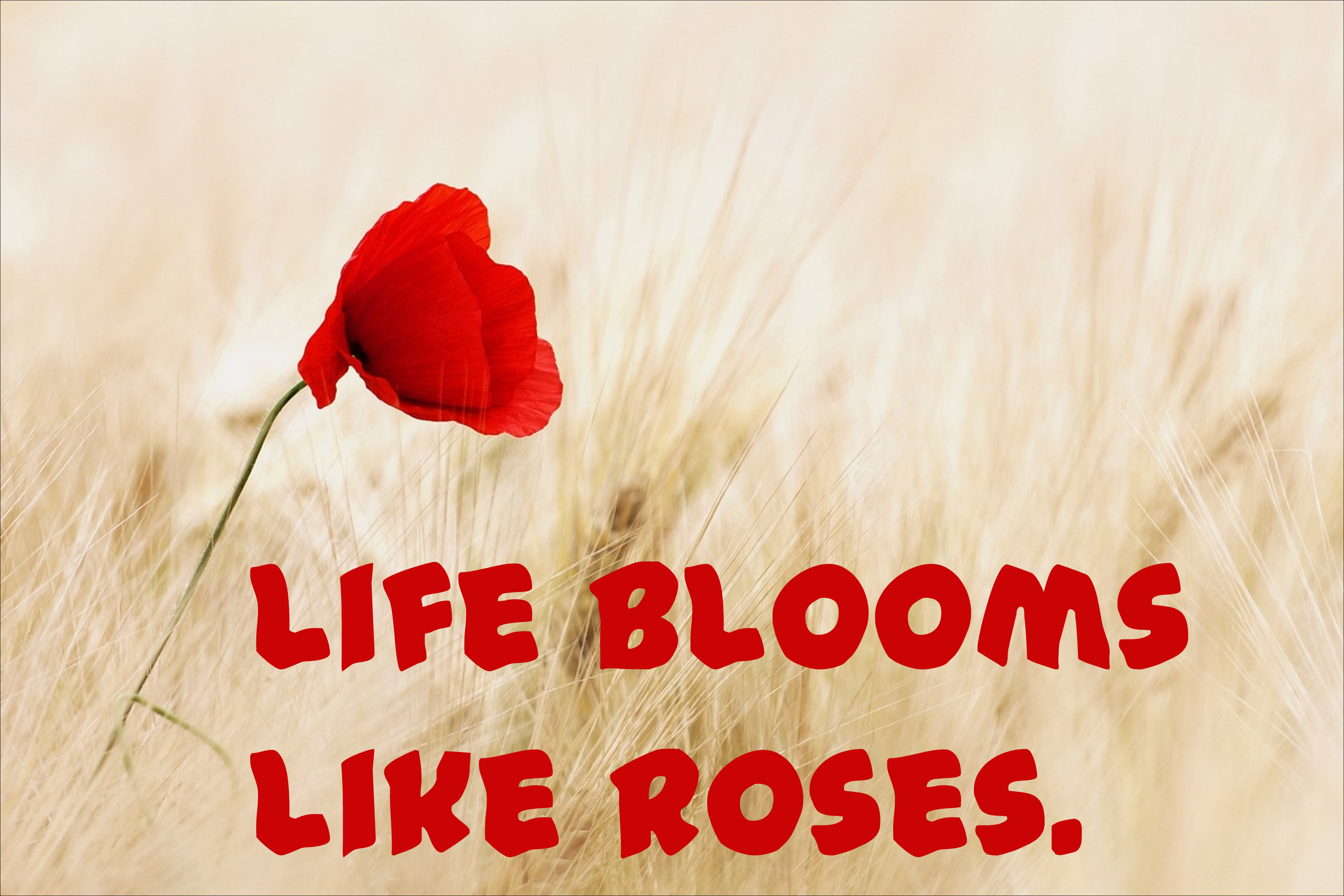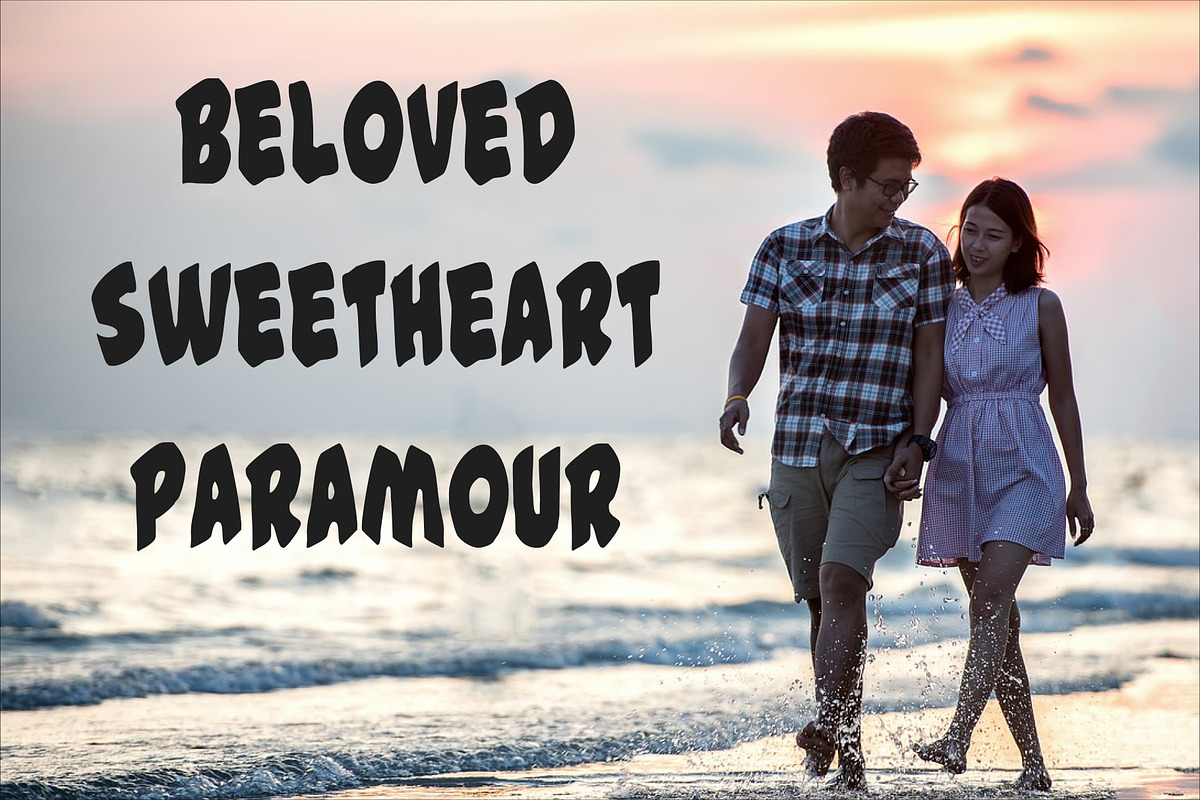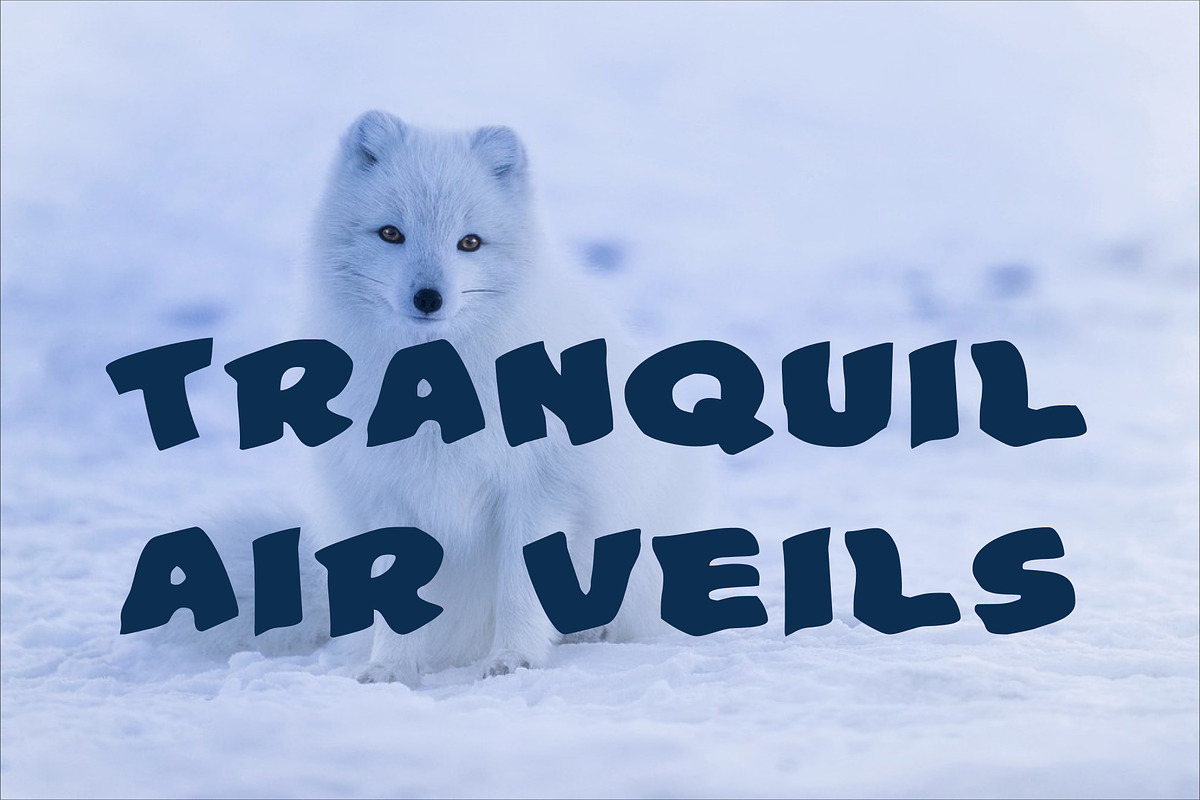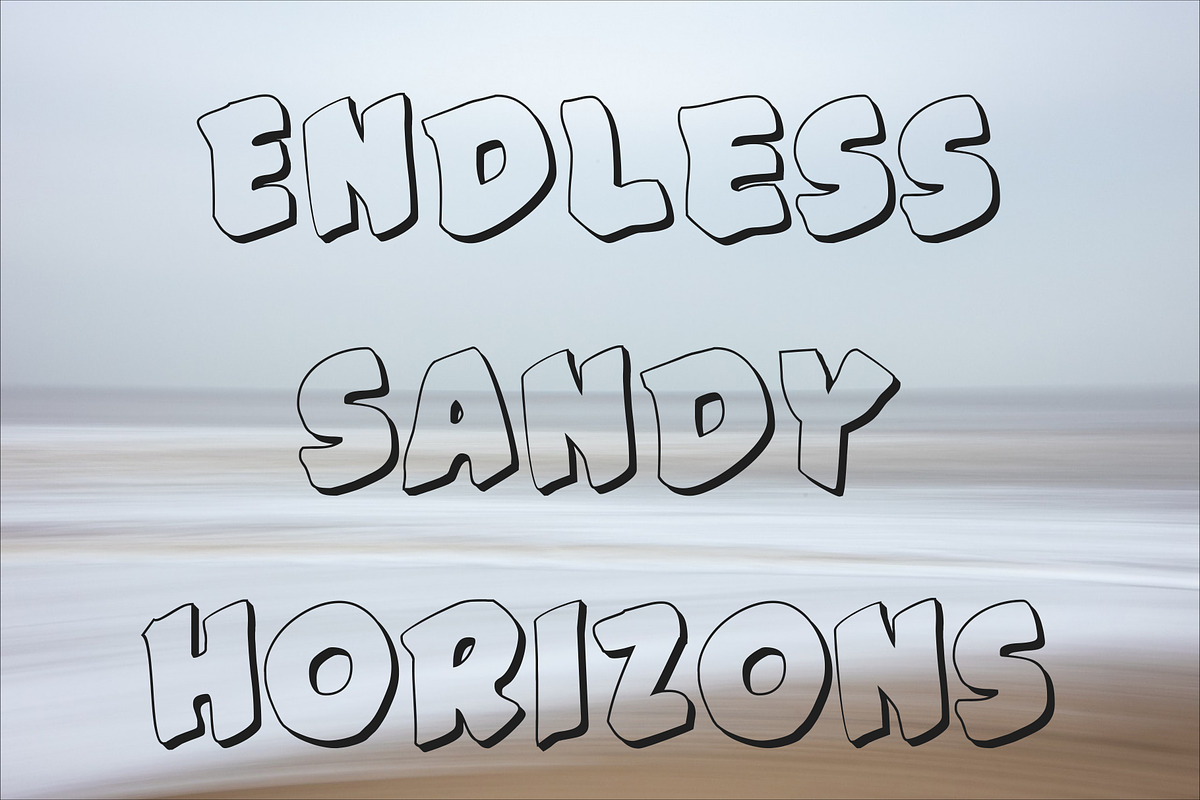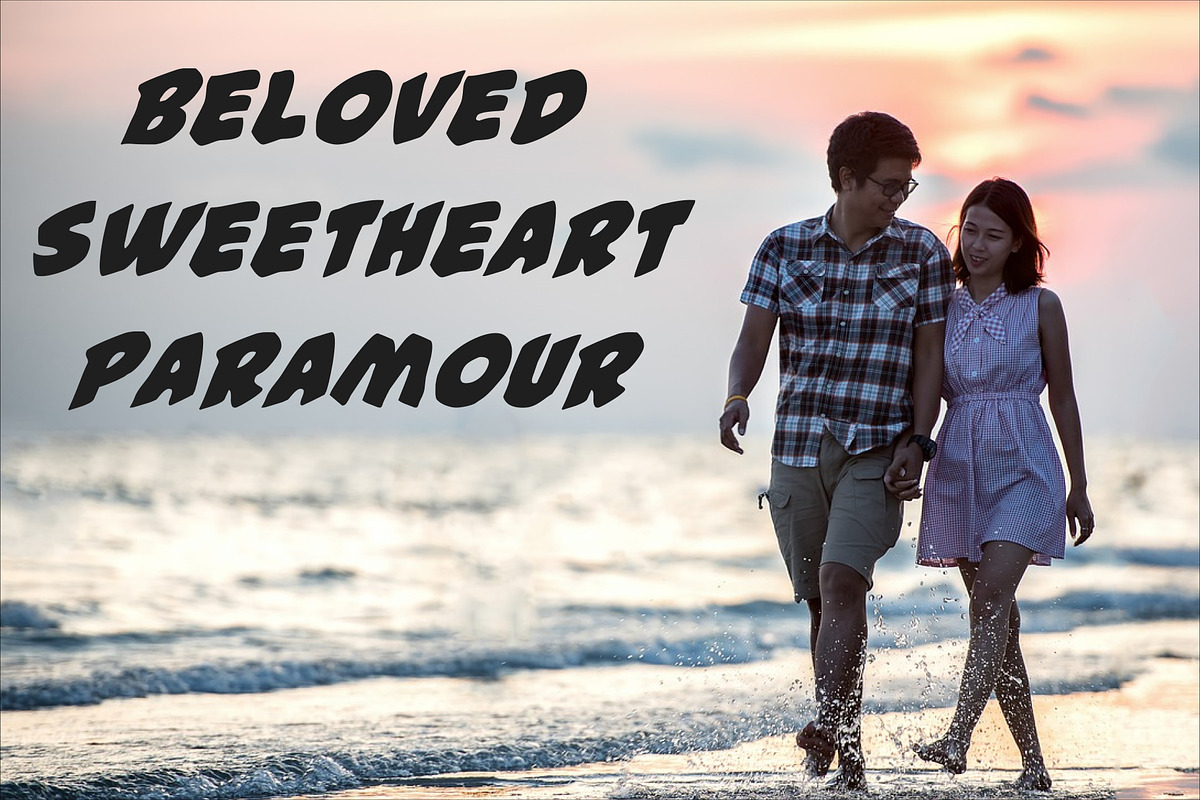
Discover Elegance with Modern Font
Elevate your designs with our exquisite Modern Font Collection, meticulously crafted to infuse elegance and sophistication into your projects.
Perfect for branding, web design, and print materials, these fonts offer a contemporary aesthetic with clean lines and stylish details. Whether you're a graphic designer, web developer, or content creator, our fonts will help you achieve a polished and professional look.
Explore our selection and find the perfect typeface to enhance creativity and captivate your audience.